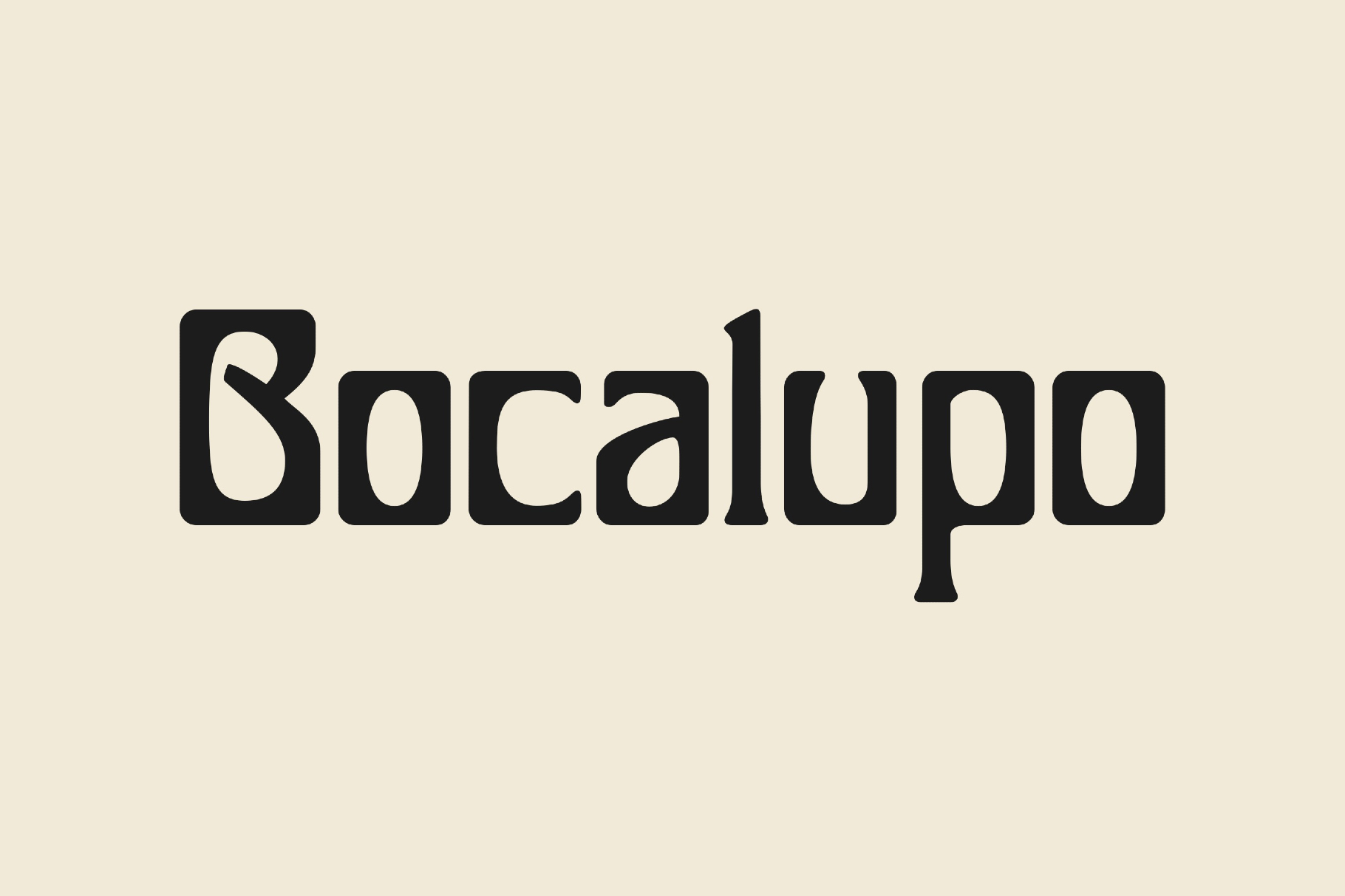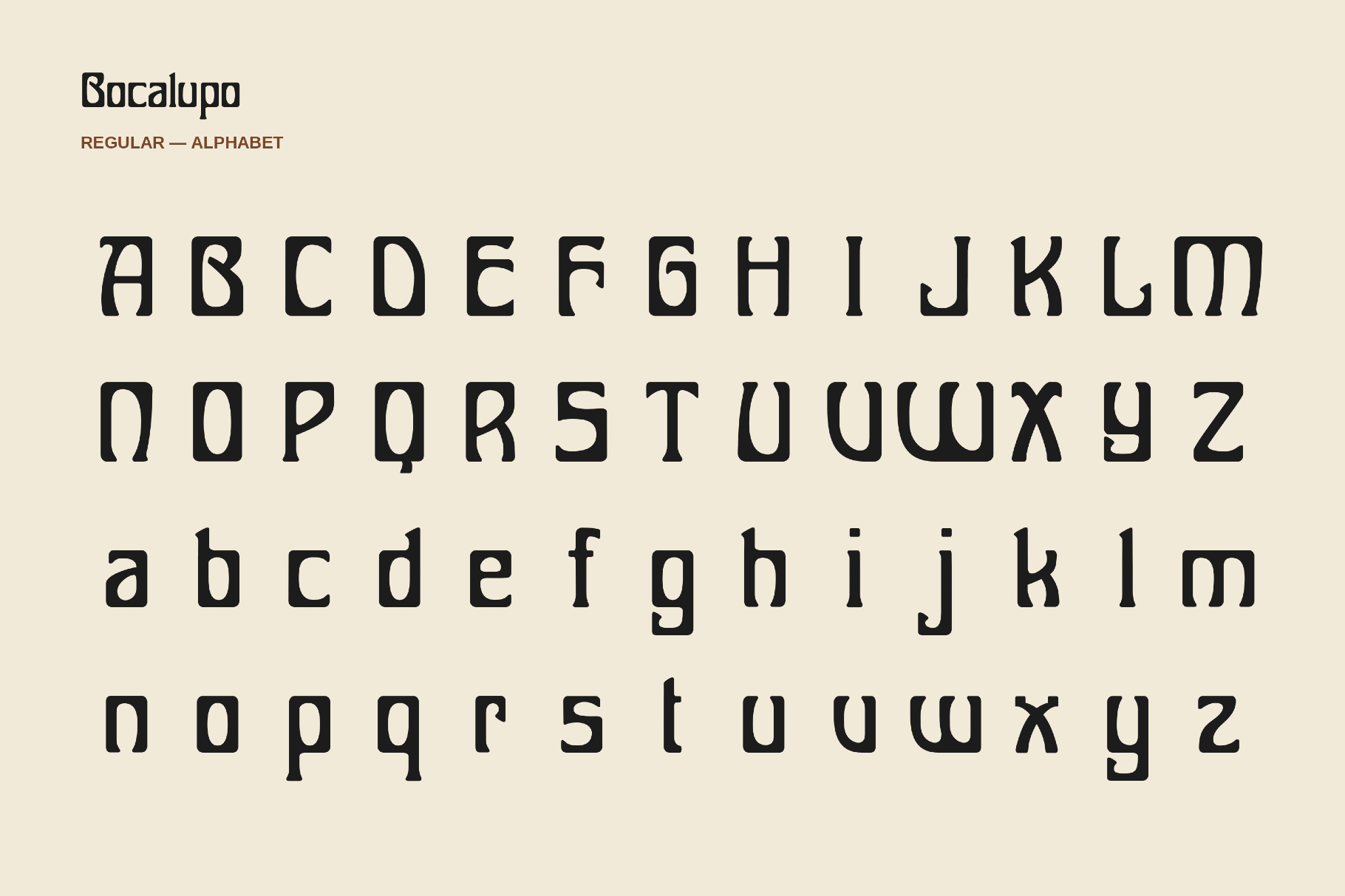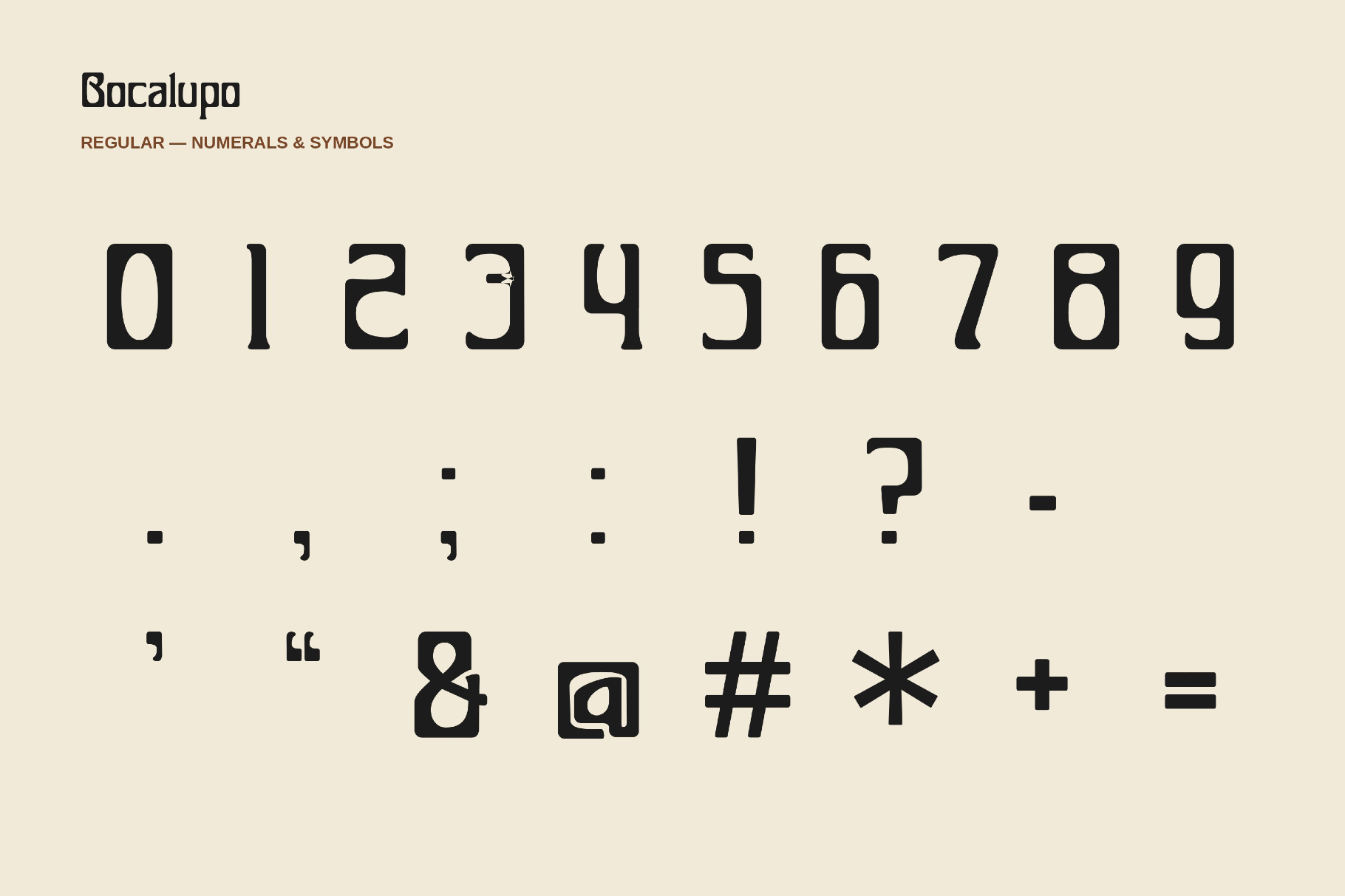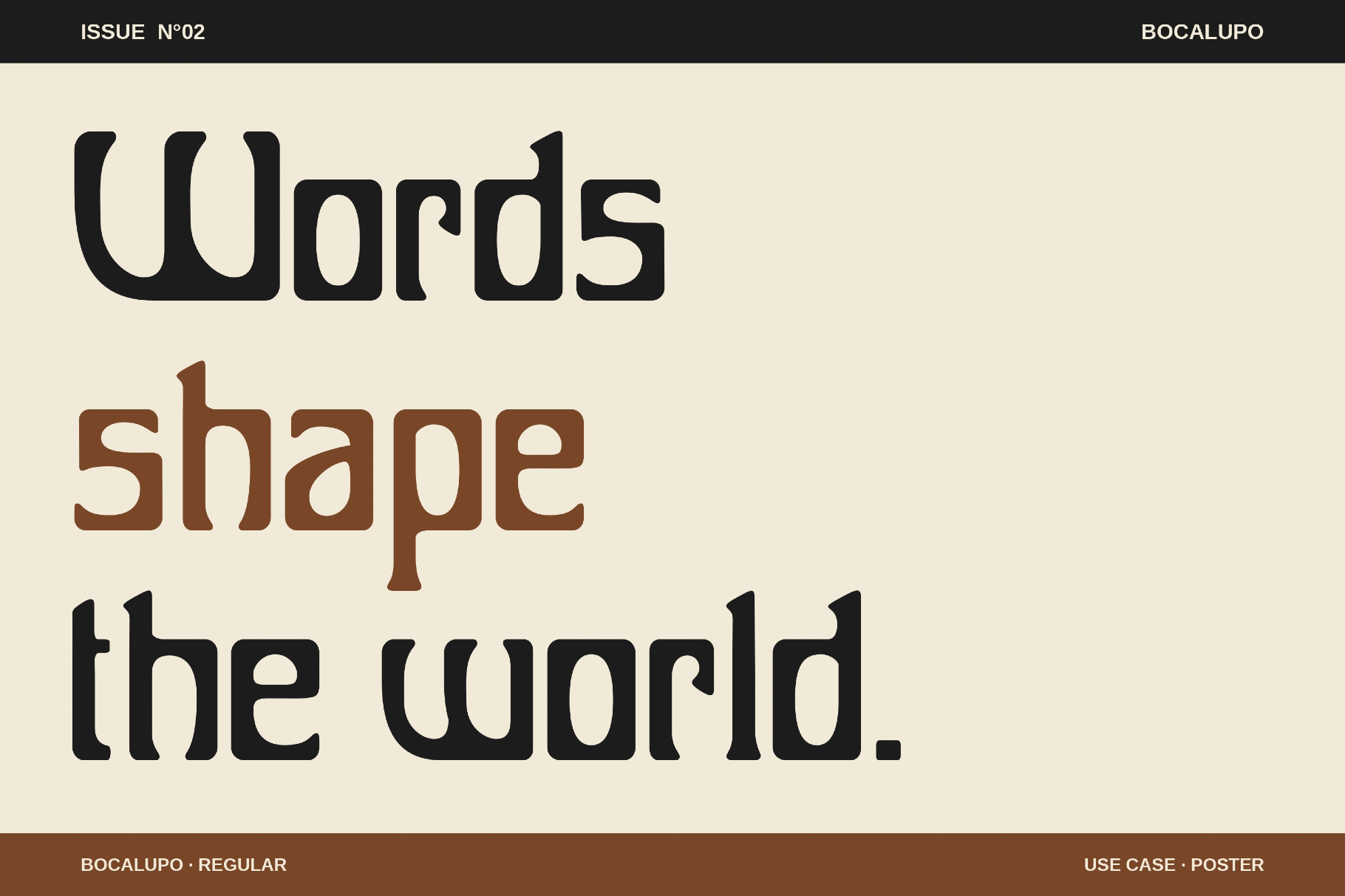
Bocalupo - Groovy Psychedelic Font
Plump theatrical lettering with quirky curves and a storybook grin of Bocalupo recalls Italian cartoon titles, vintage puppet theater posters, and mid-century candy packaging. Café branding, dessert packaging, toy labels, party invitations, festival posters, kids’ editorial layouts, playful merch, menu headers, sticker designs, and social media graphics — all look expressive and full of personality thanks to rounded details and lively rhythm.